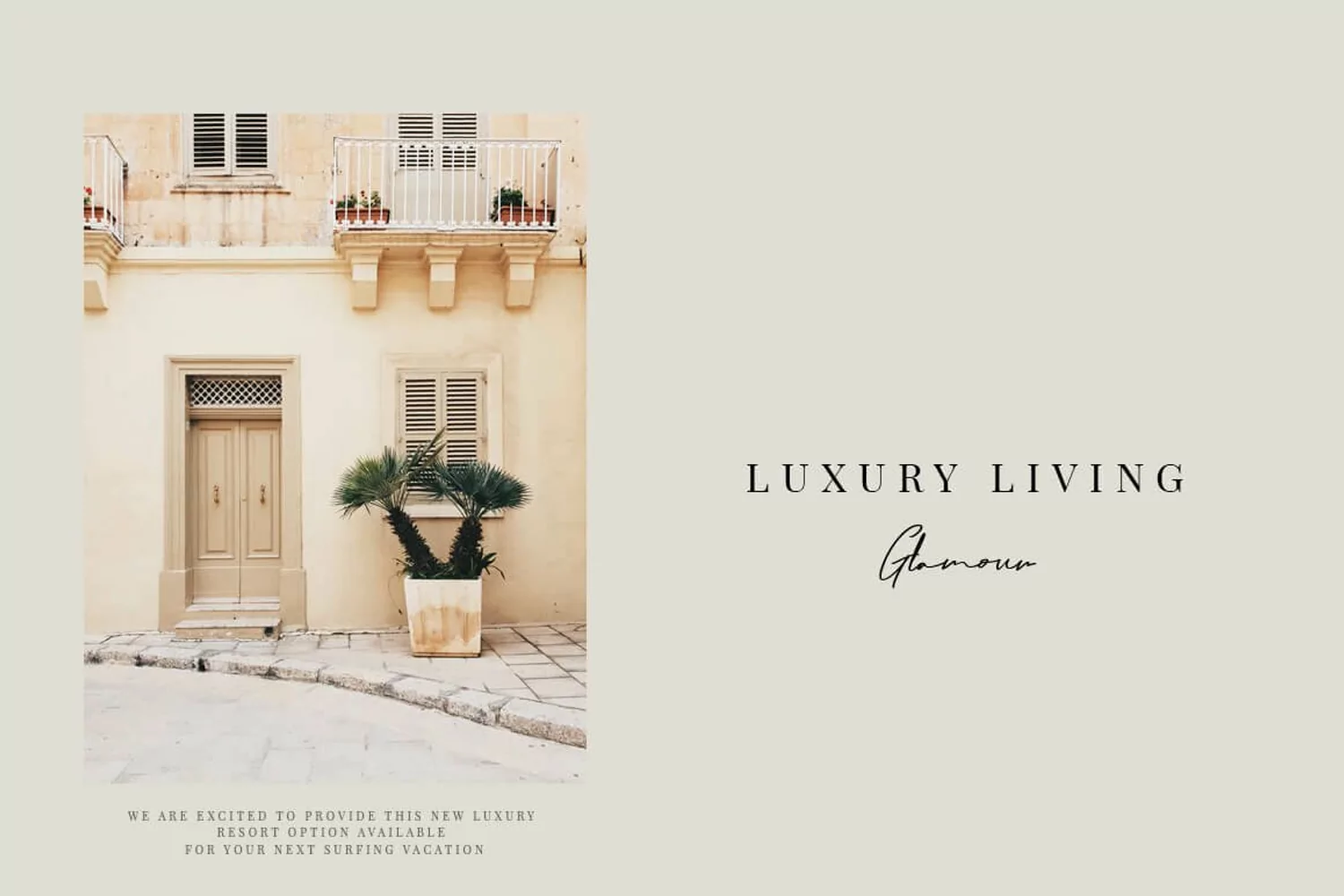
Matt Rostine - Handwritten Font
Matt Rostine Font feels equally charming and elegant. It looks stunning on wedding invitations, thank you cards, quotes, greeting cards, logos, business cards and every other design which needs a handwritten touch.
This font is PUA encoded which means you can access all of the glyphs and swashes with ease! It features a varying baseline, smooth lines, gorgeous glyphs and stunning alternates.
• Ton of glyphs
• Ligature & Alternate
• Fonts include multilingual support for; Afrikaans, Albanian, Czech, Danish, Dutch, English, Estonian, Finnish, French, German, Hungarian, Italian, Latvian, Lithuanian, Norwegian, Polish, Portuguese, Slovak, Slovenian, Spanish, Swedish.